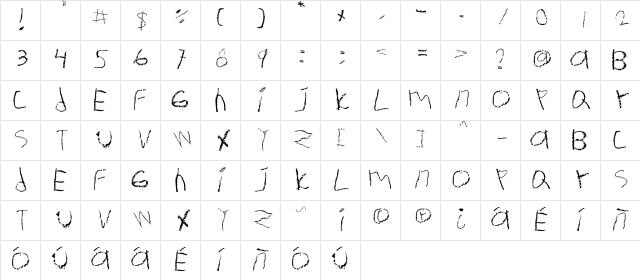
Ermanita Regular
Design Context for Ermanita
Ermanita is a composed and adaptable typeface that performs quietly and consistently across a wide range of design contexts.